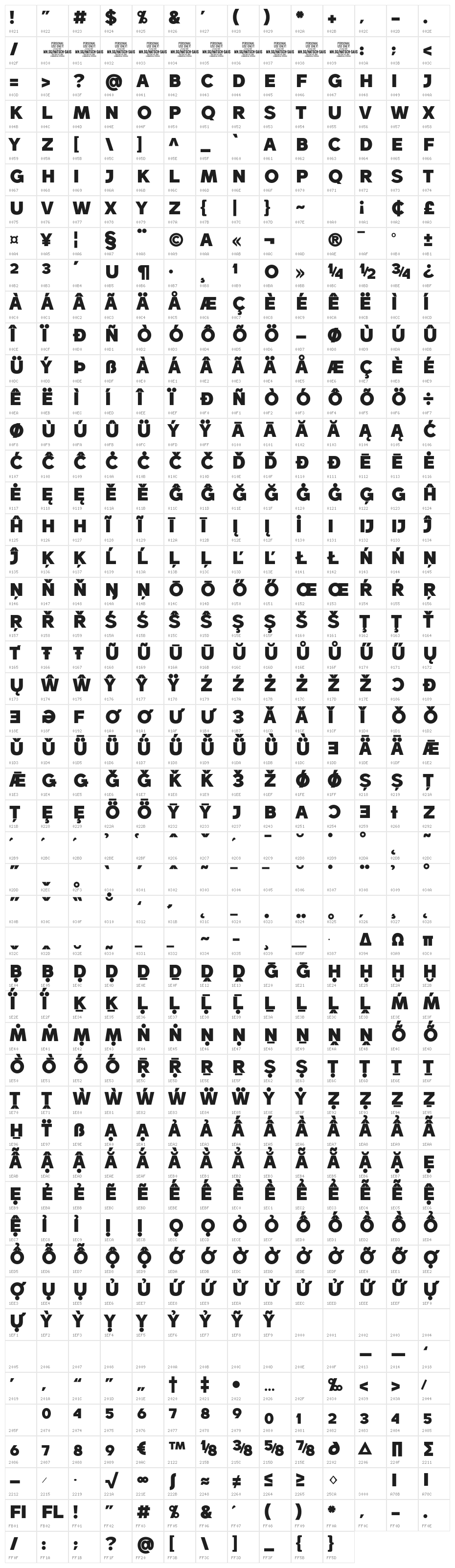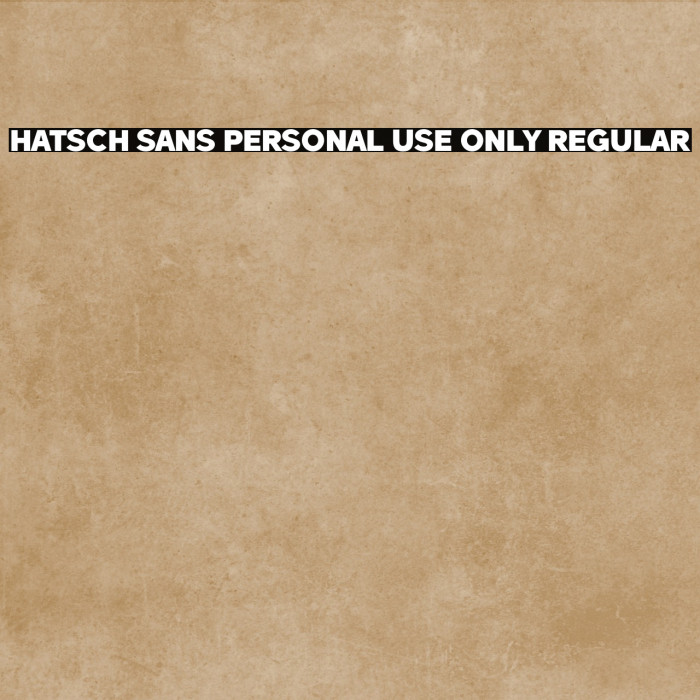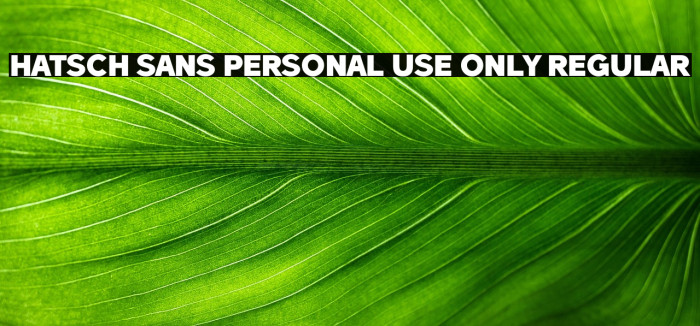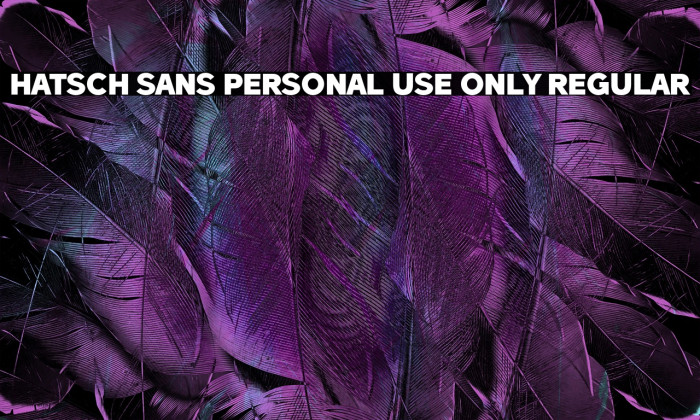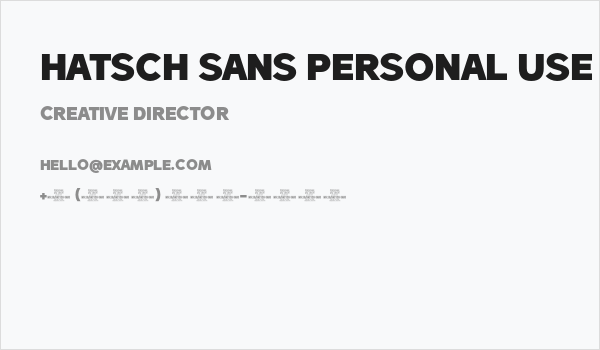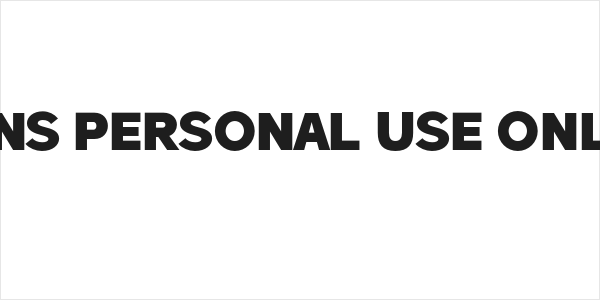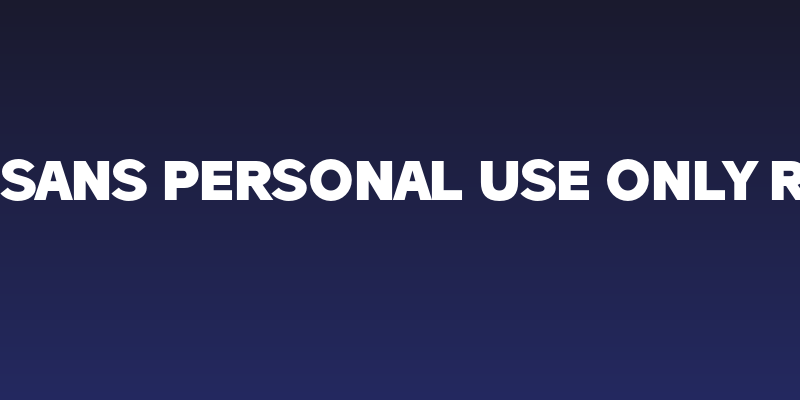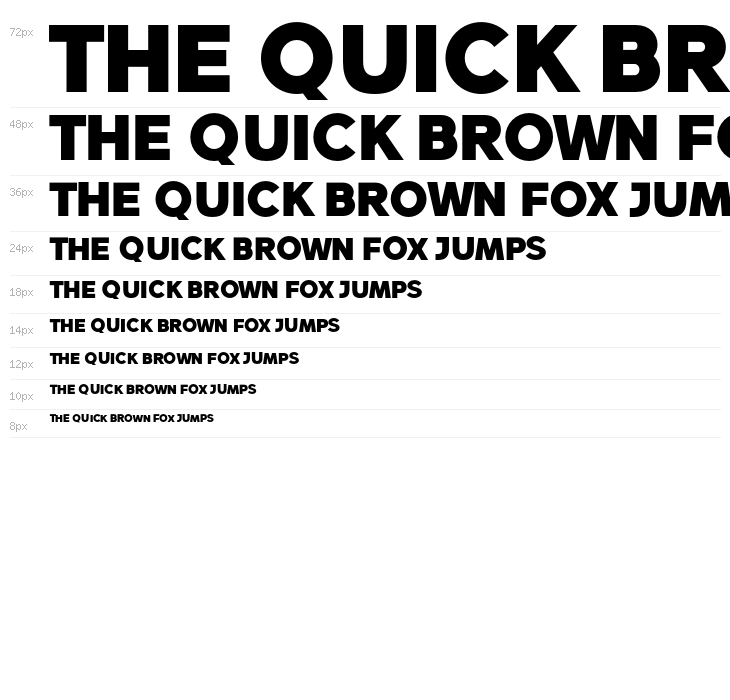
Hatsch Sans PERSONAL USE ONLY Regular Font
Hatsch Sans PERSONAL USE ONLY Regular Description
This font features bold, geometric sans-serif characters with a strong presence. The uppercase letters are uniform in height, creating a cohesive and balanced look. The characters are wide and have a modern, clean aesthetic, making them highly legible. The numbers and special characters maintain the same boldness and geometric style, ensuring consistency across all glyphs. The font's simplicity and clarity make it versatile for various design applications.